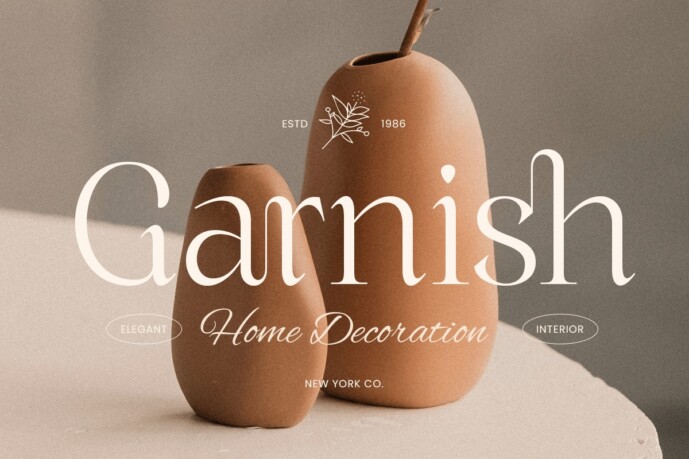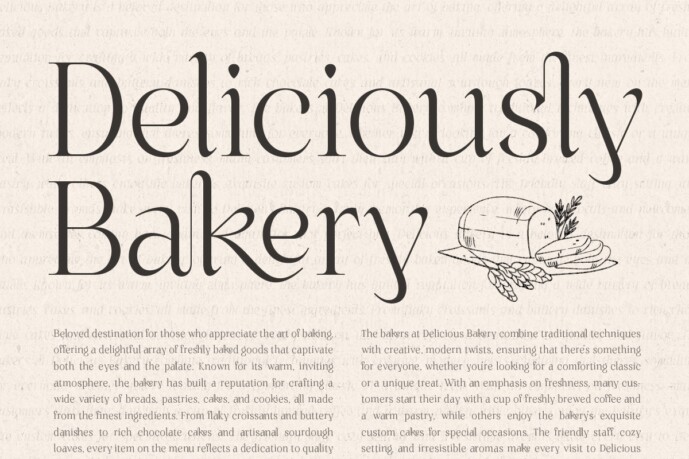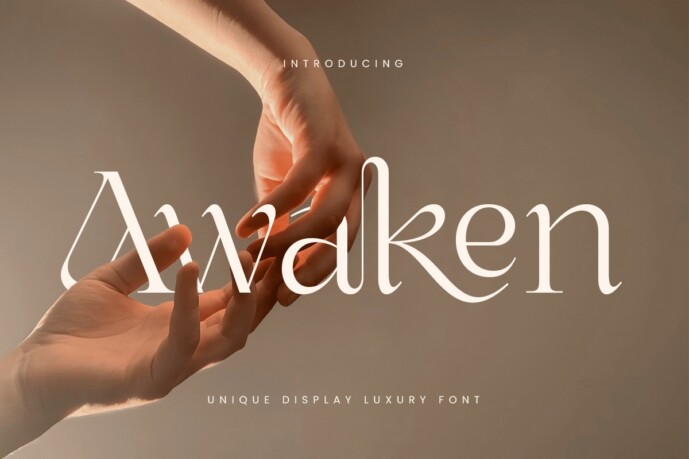
Awaken Serif Font
Designer: HamzStudio
Awaken Serif Font is a unique luxury display font designed to enhance any design project with its sophisticated style. This font embodies a perfect balance between elegance and modernity, making it an ideal choice for high-end brands, luxurious logos, and exclusive invitations. The distinctive letterforms exude an air of prestige and allow your work to stand out in any context.
With Awaken, you can transform simple texts into stunning visuals that capture attention and convey exclusivity. Its artistic details and carefully crafted strokes create an atmosphere of refinement, perfect for fashion brands, high-end events, and premium products. Awaken’s versatility ensures that it pairs well with both classic and contemporary aesthetics.
Whether you’re working on a branding project, a large-scale marketing campaign, or a sleek editorial layout, Awaken brings a touch of luxury and originality that enhances your designs. Bring sophistication to your designs with this essential typeface that combines luxury and originality